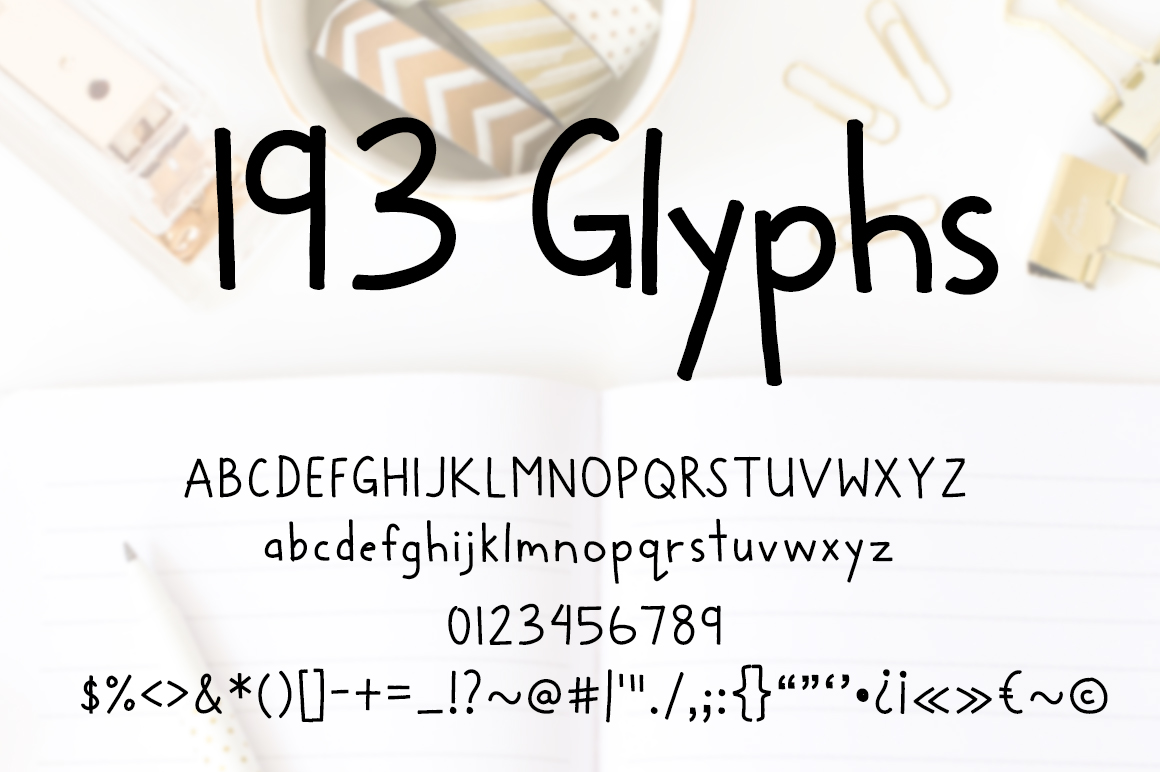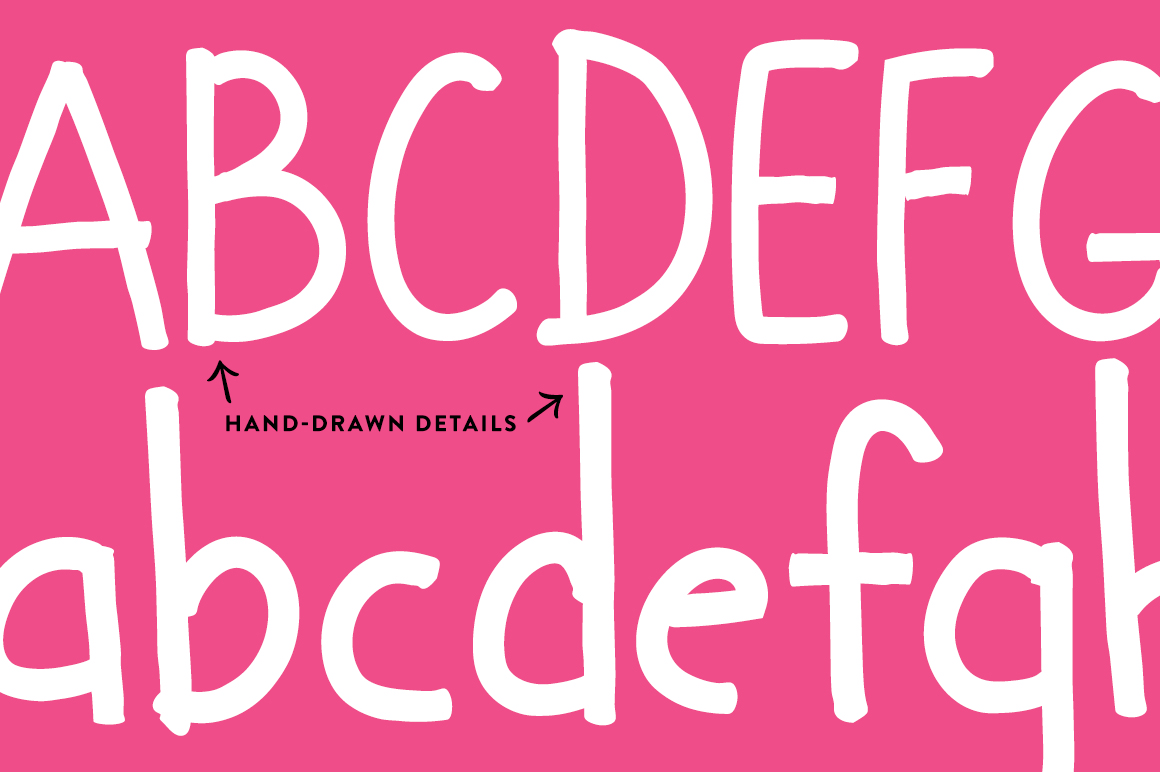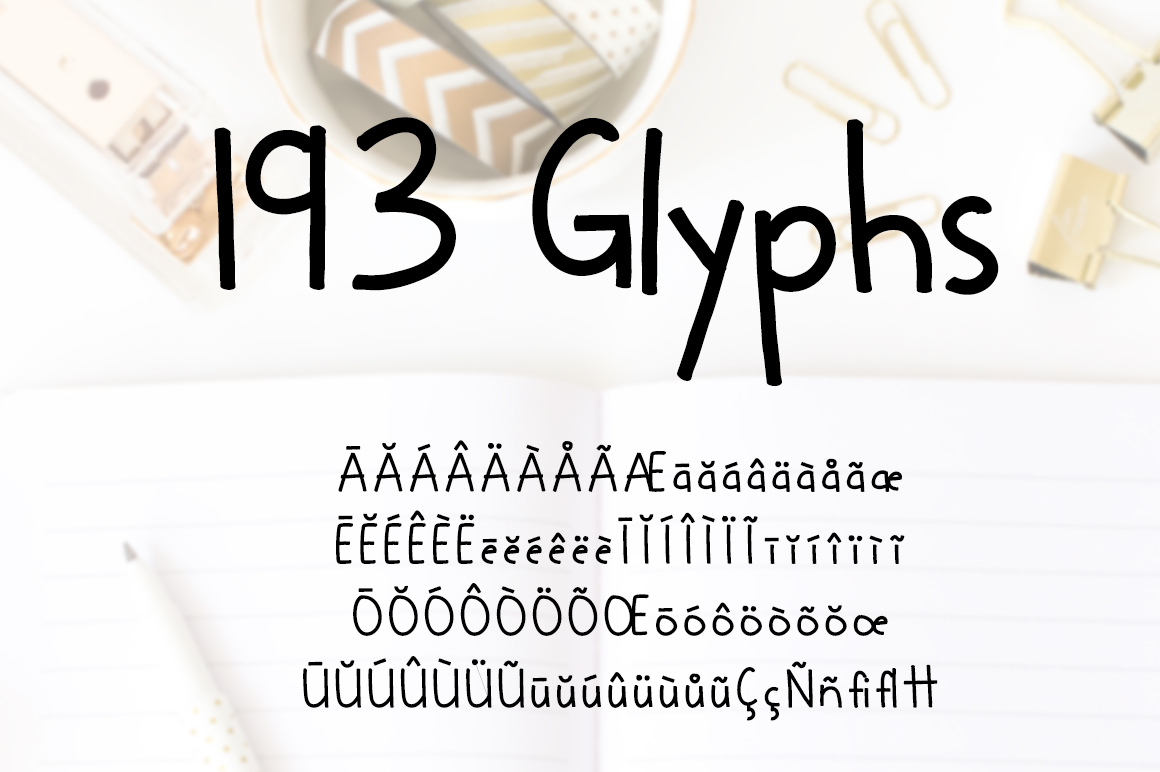
Washi Font
About Washi Font
The Washi font is the first font of designer Jillian Adriana.
This cute hand-drawn font is a washi tape inspired font that features 193 glyphs. Every glyph has little hand drawn details that give this font a very personal feel.